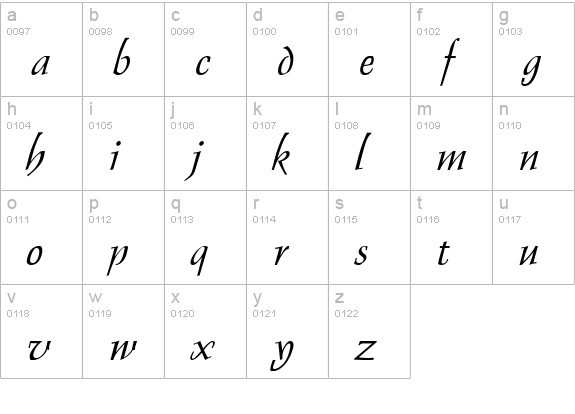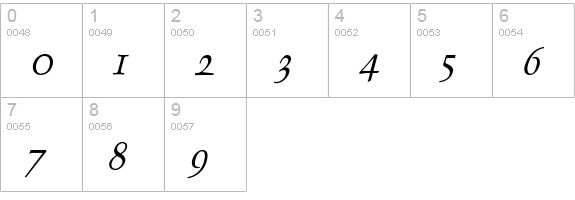
Dolphin Italic is a distinctive, italic variant in the Dolphin typeface family \xE2\x80\x94 well suited to design and typography projects.
Dolphin Italic font is a beautifully crafted typeface that exudes elegance and sophistication. Its sleek and stylish design is sure to make your projects stand out. The italicized letterforms flow gracefully, adding a touch of modernity to any text. This font is perfect for adding a touch of class to invitations, branding materials, and more. The best part? Dolphin Italic font is available for free download at FontsMarket.com. You can easily access this stunning font and elevate your designs without breaking the bank. Don't miss out on the opportunity to enhance your projects with the timeless charm of Dolphin Italic font.